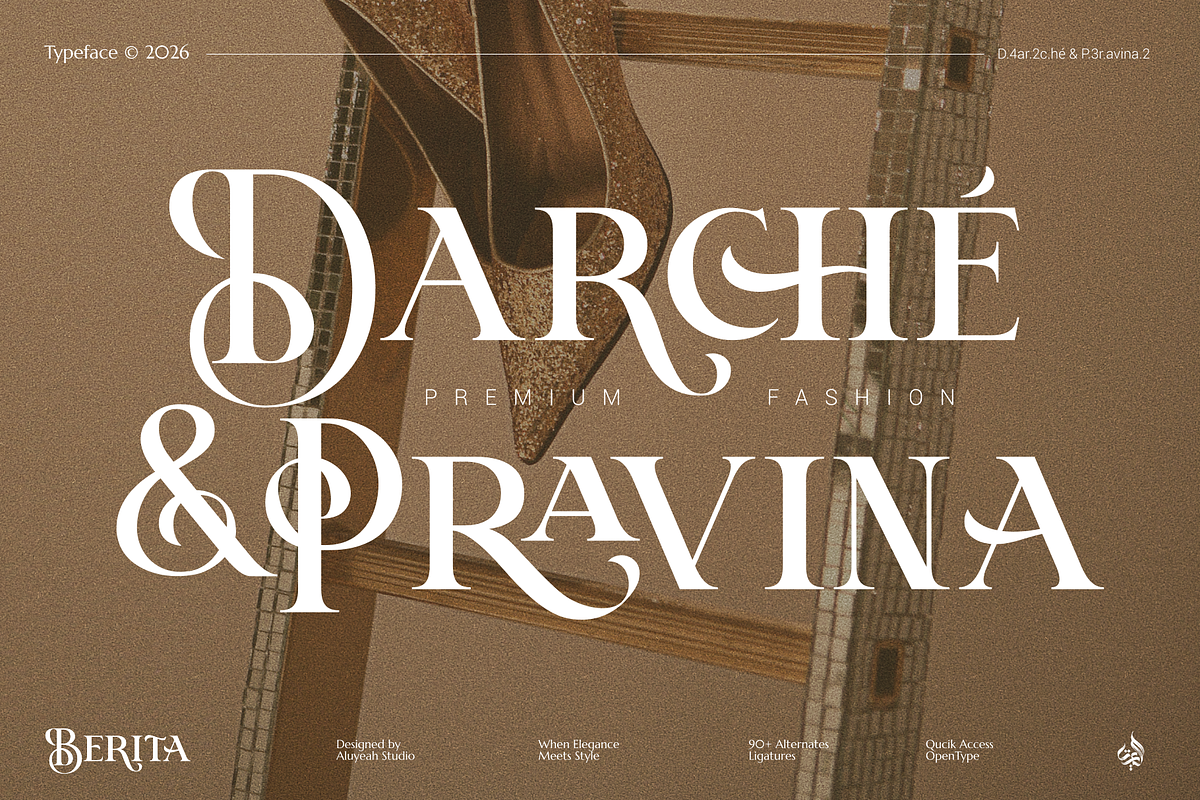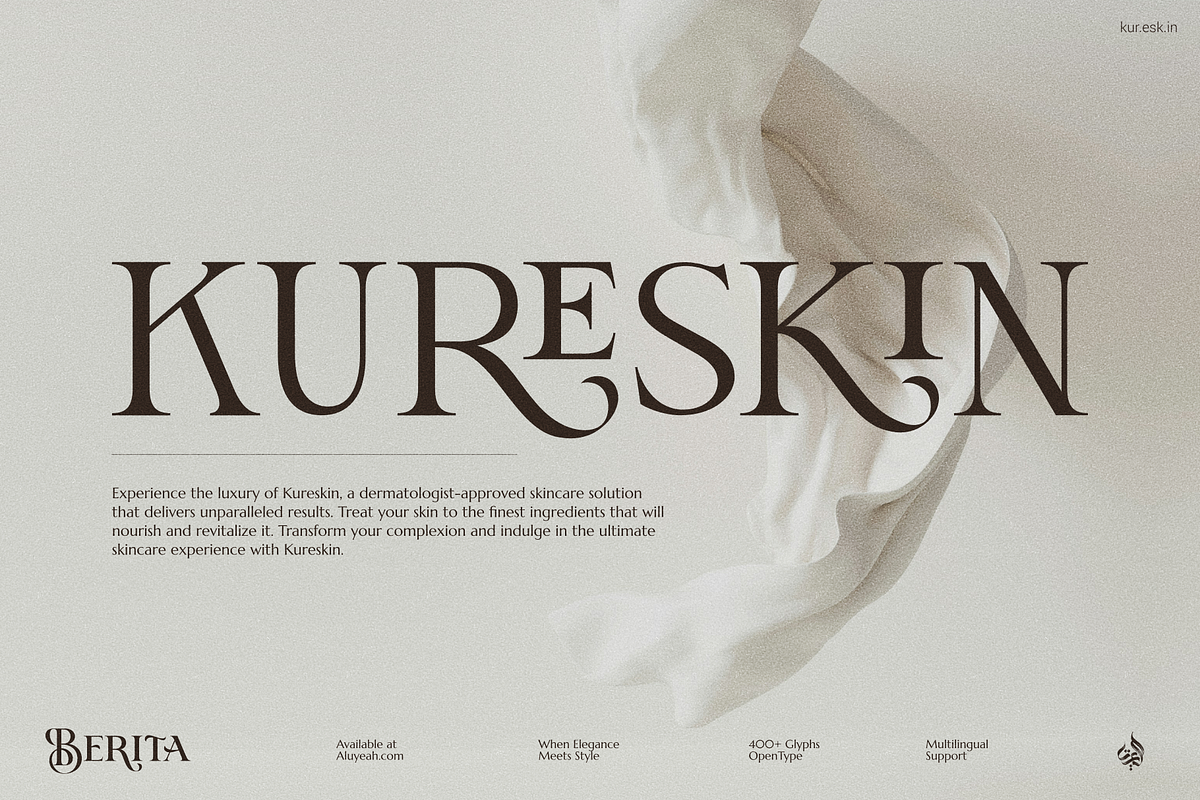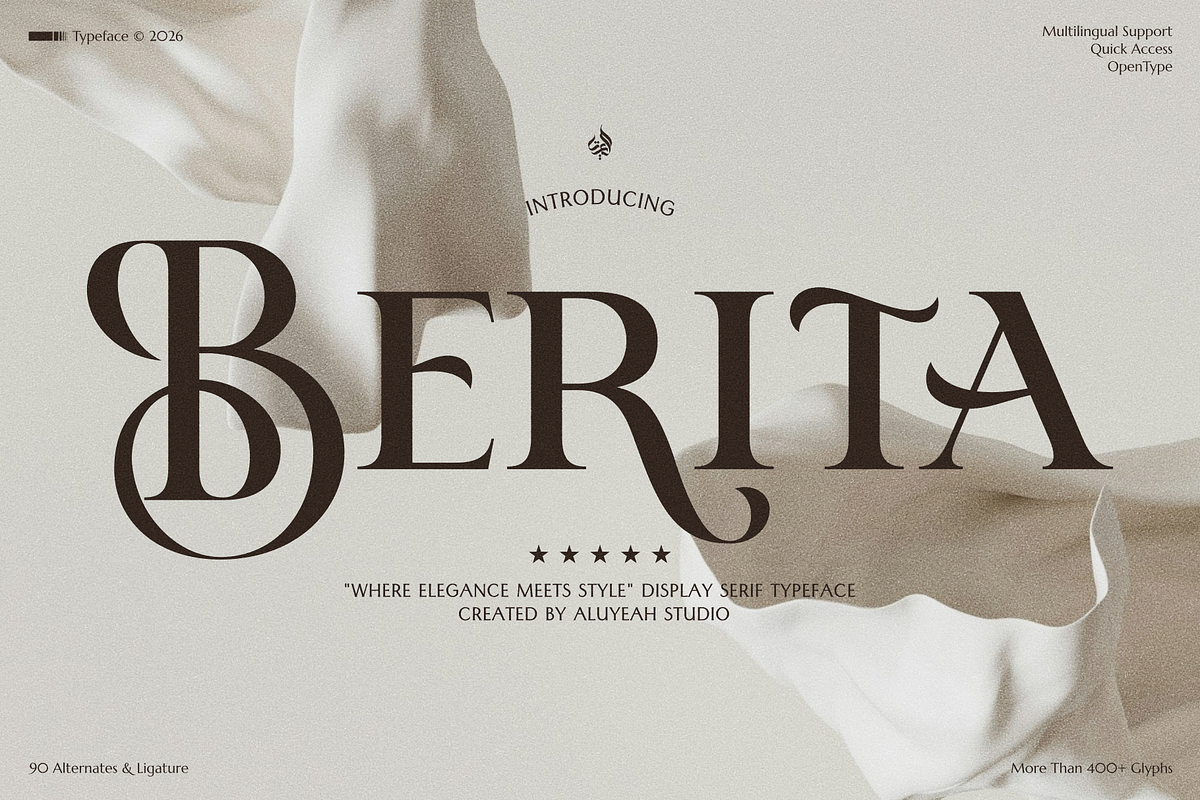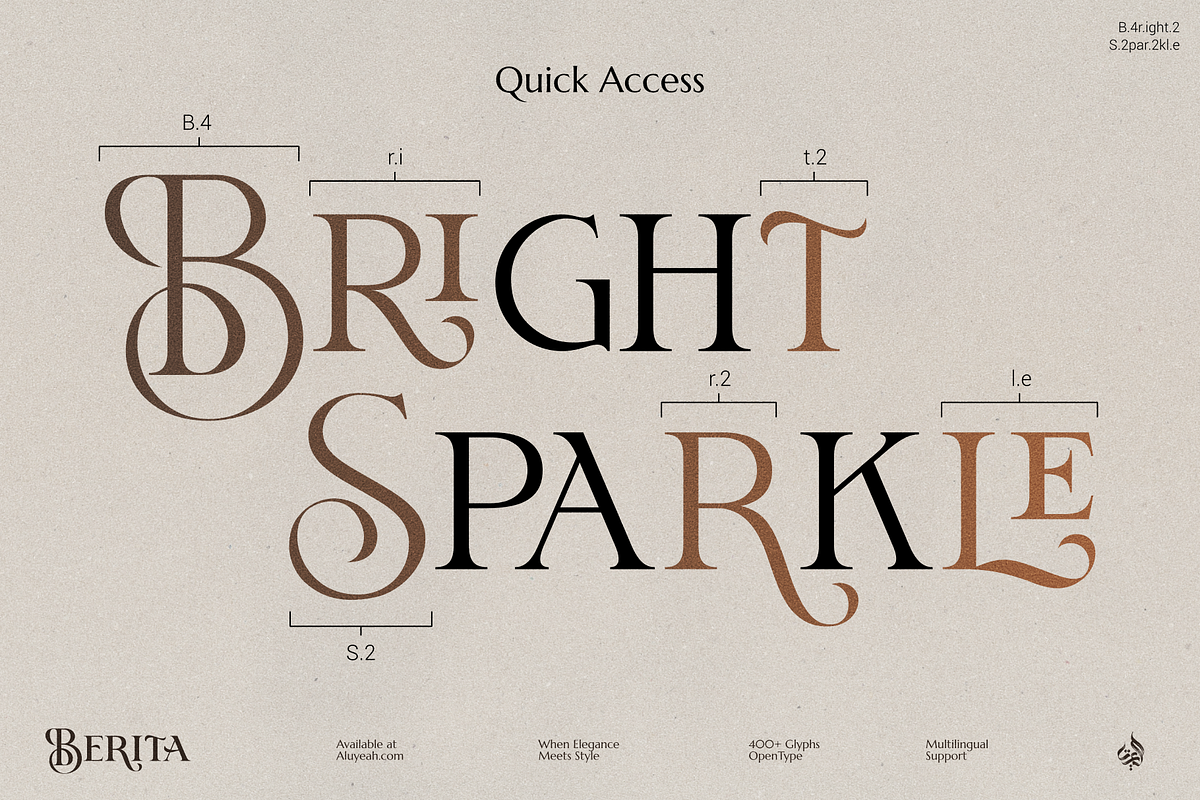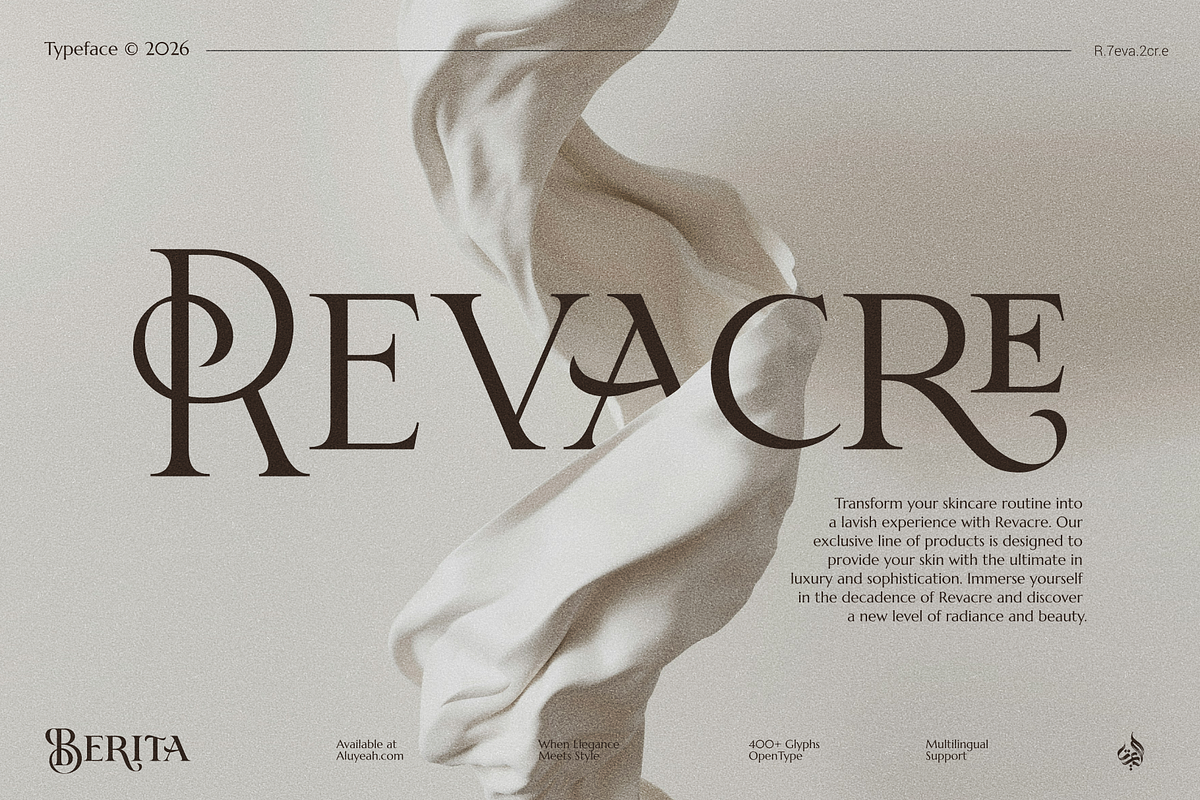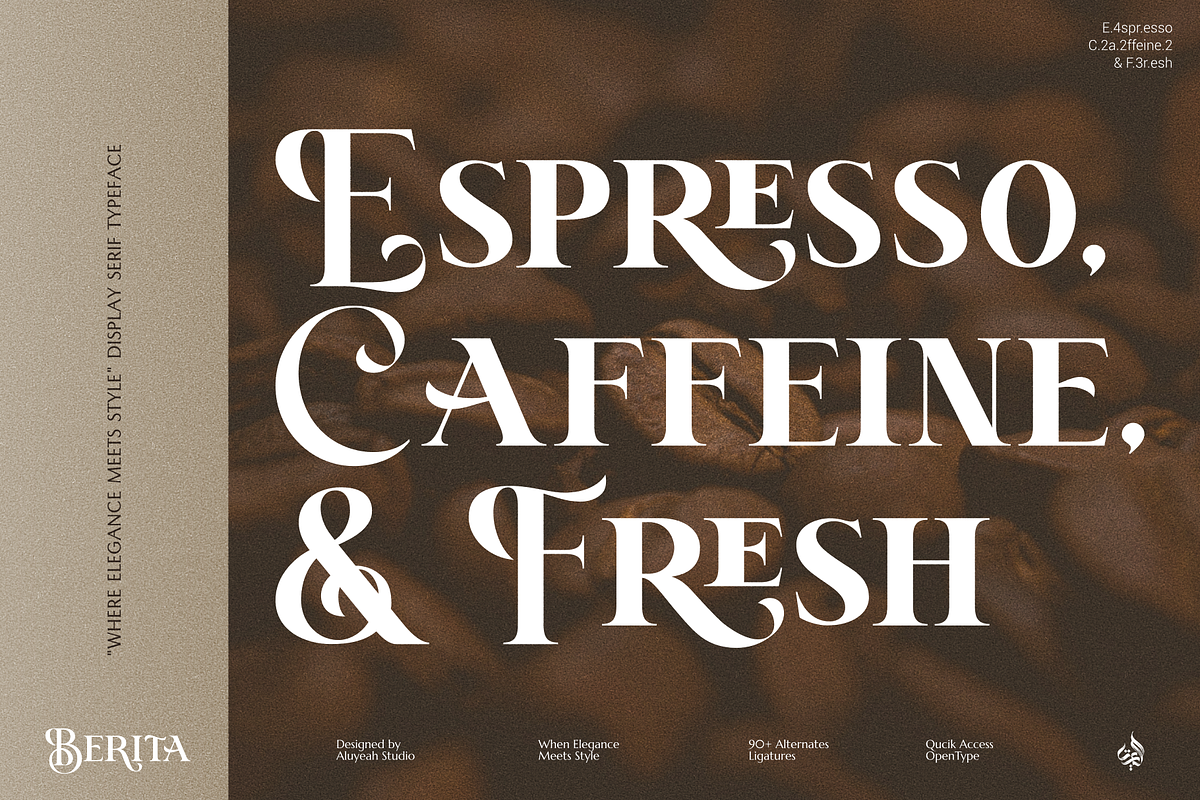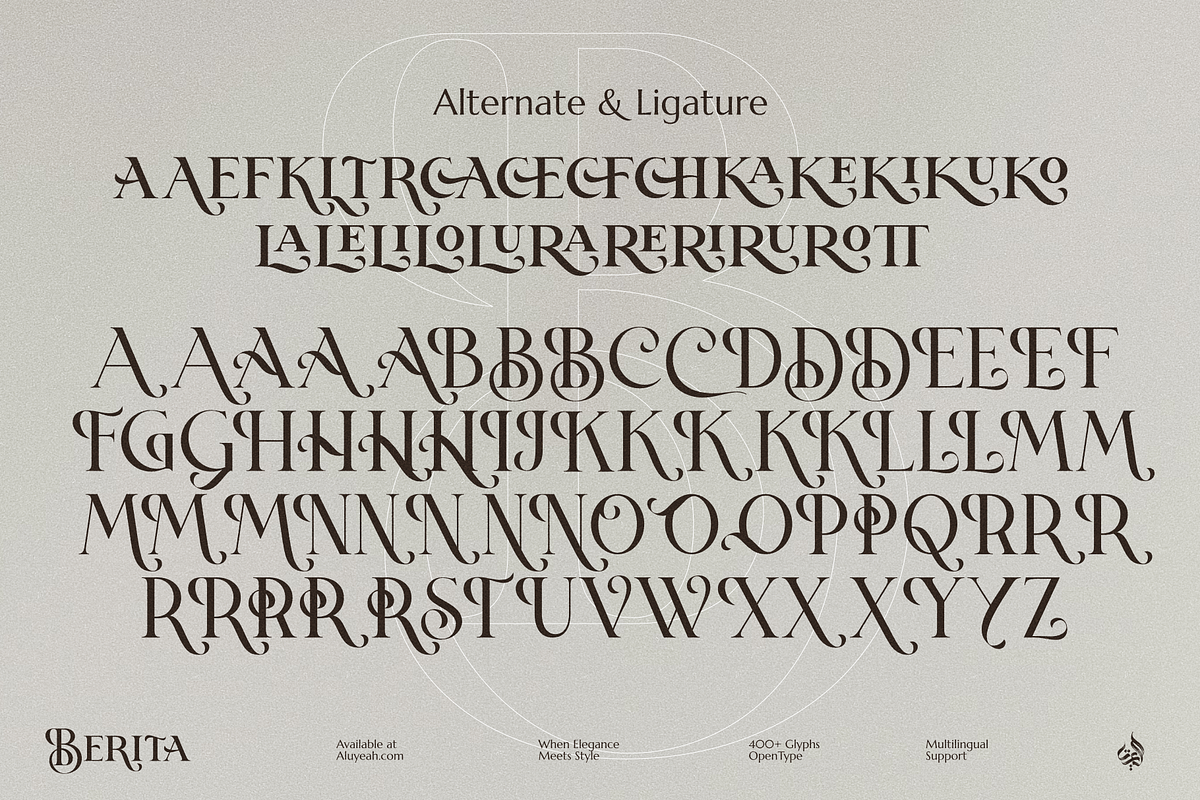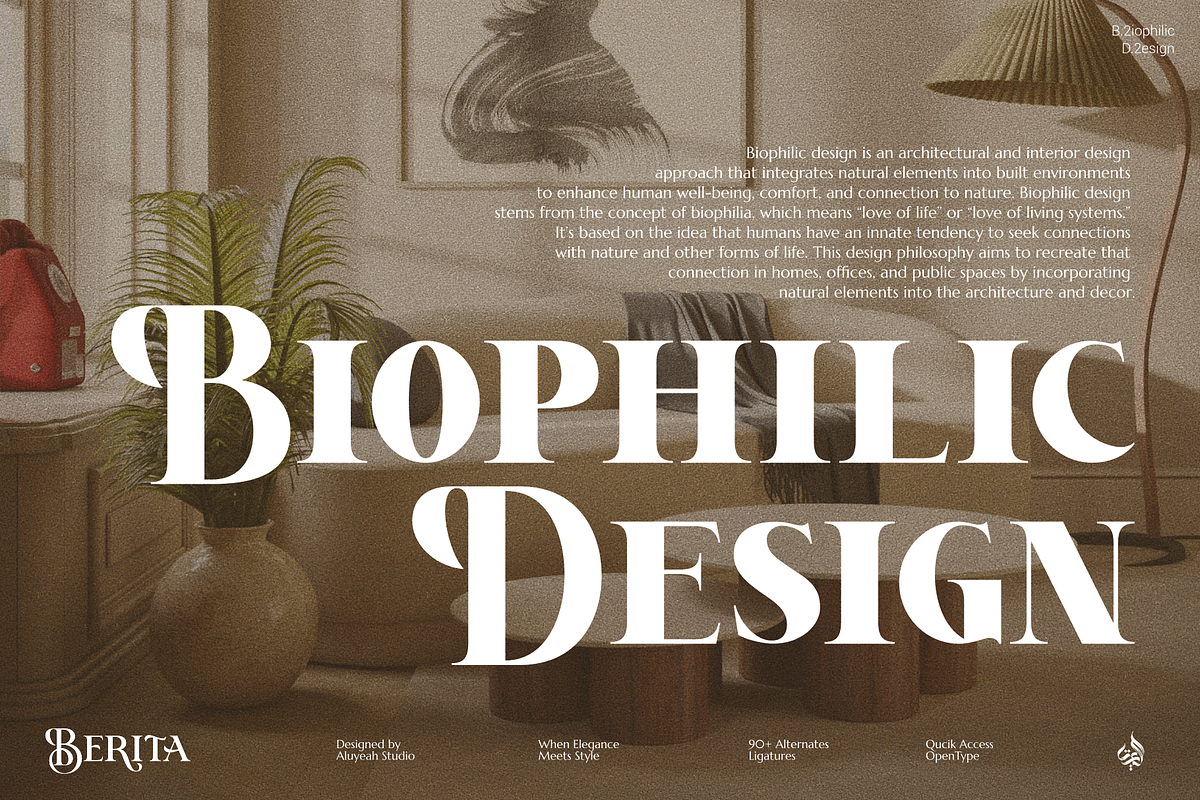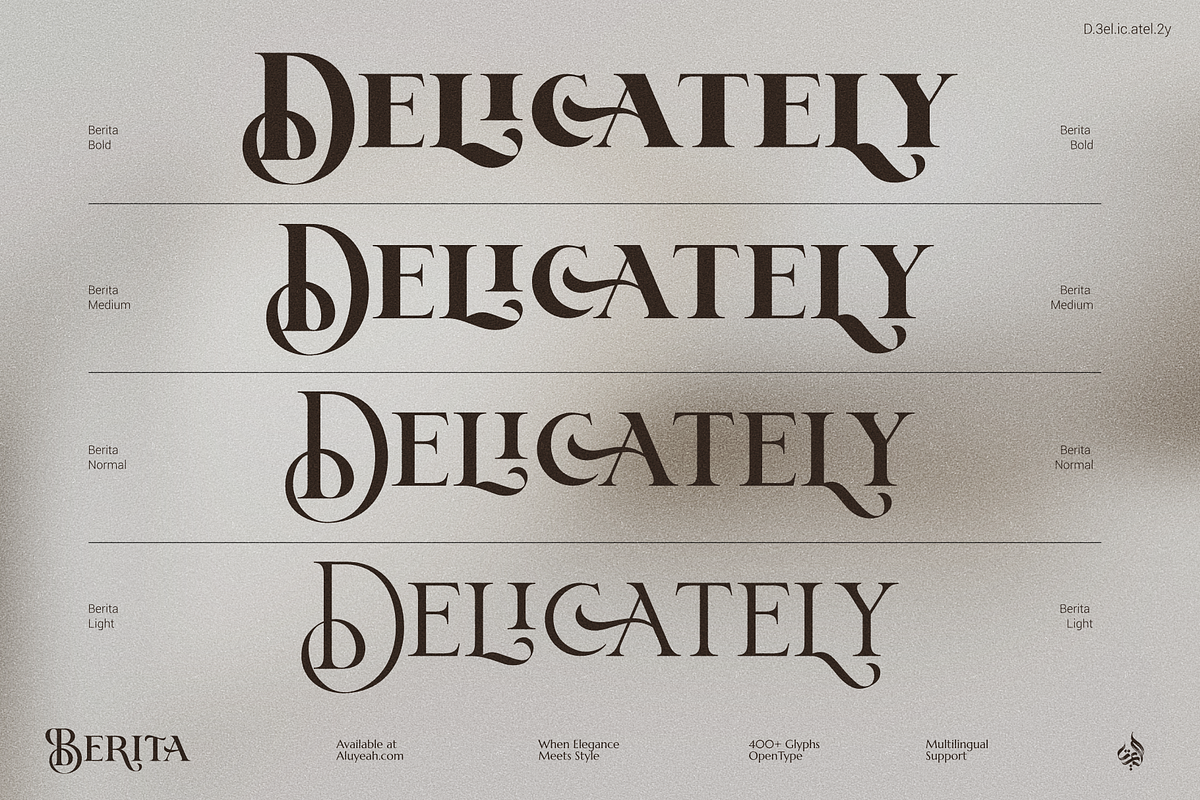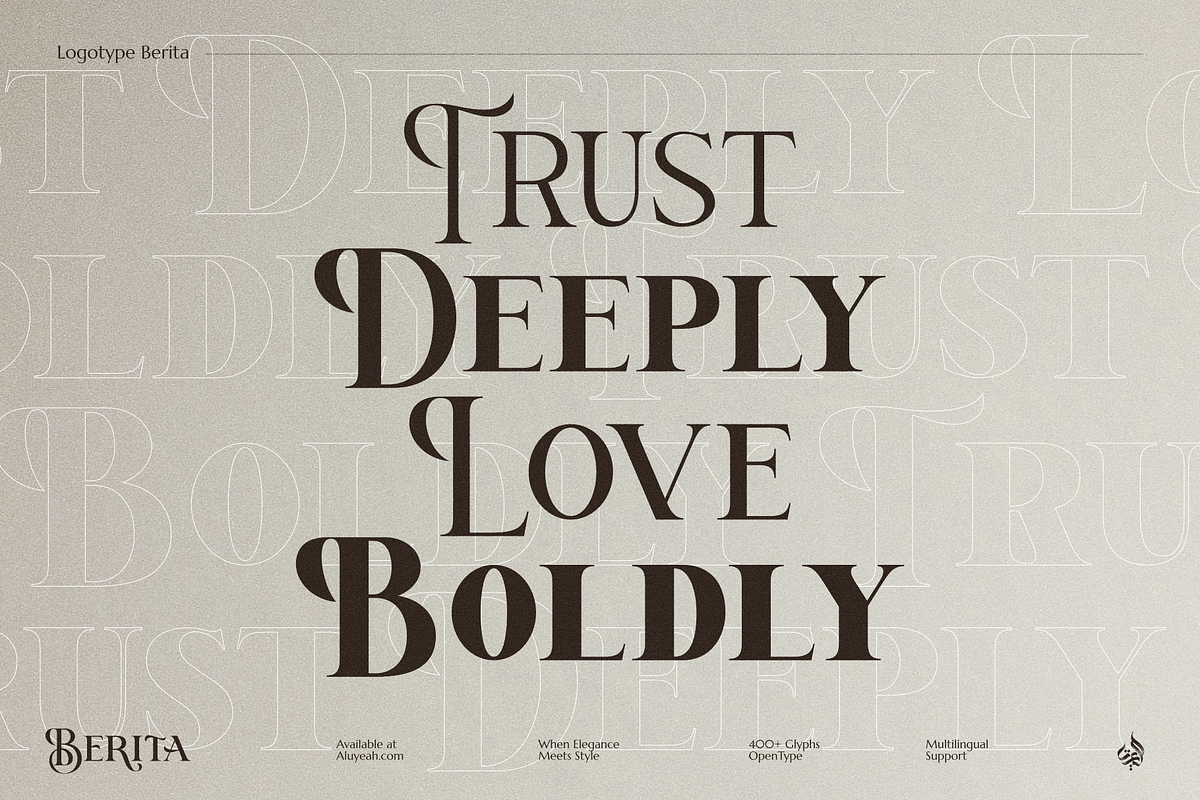
Berita
Introducing Berita - Where Elegance Meets Style!
We crafting fonts that are visually appealing and user-friendly. Our goal is to ensure anyone can easily use our fonts, regardless of their design background. By providing quick access features, We create fonts that are easy to work with. Making design accessible and enjoyable for everyone drives our passion, and we hope my fonts bring creativity to your projects!
Experience sophistication like never before with our Berita, "where elegance meets style" display font that adds a touch of glamour to any design. With its elegant curves and sophisticated details. Featuring OpenType, multilingual, and quick access to over 90+ alternates and ligatures. Whether it's a branding project or a wedding invitation, Berita suits every design endeavor effortlessly.
- OpenType support
- Multilingual support (67 languages)
- Quick Access - You can easily call alternates using quick access combination like R.2 R.3 R.4 r.a r.e r.u etc. To get the preview-like result, you can use the quick access combination B.4e.2r.2it.2a.2